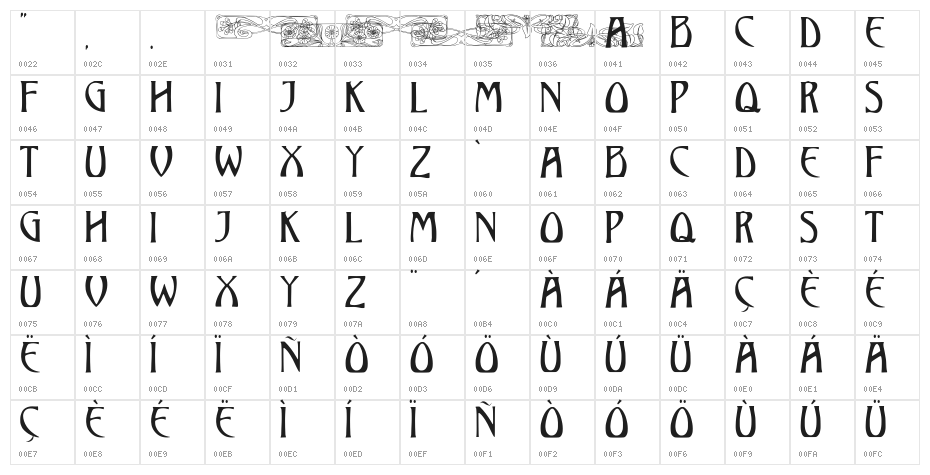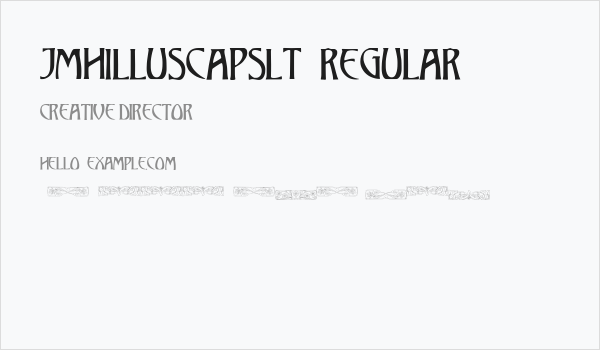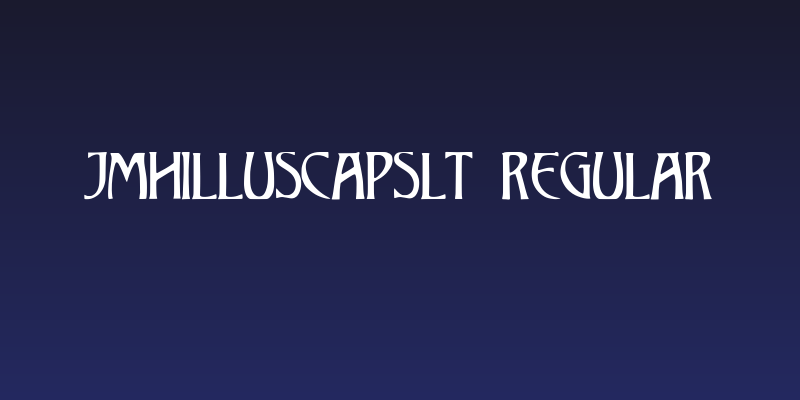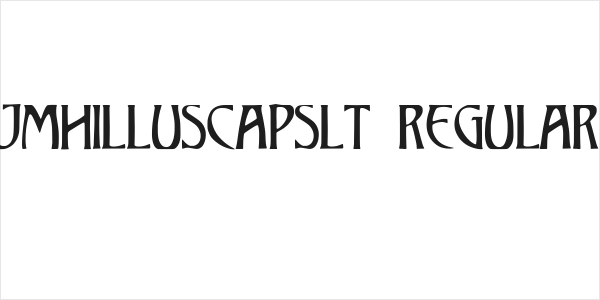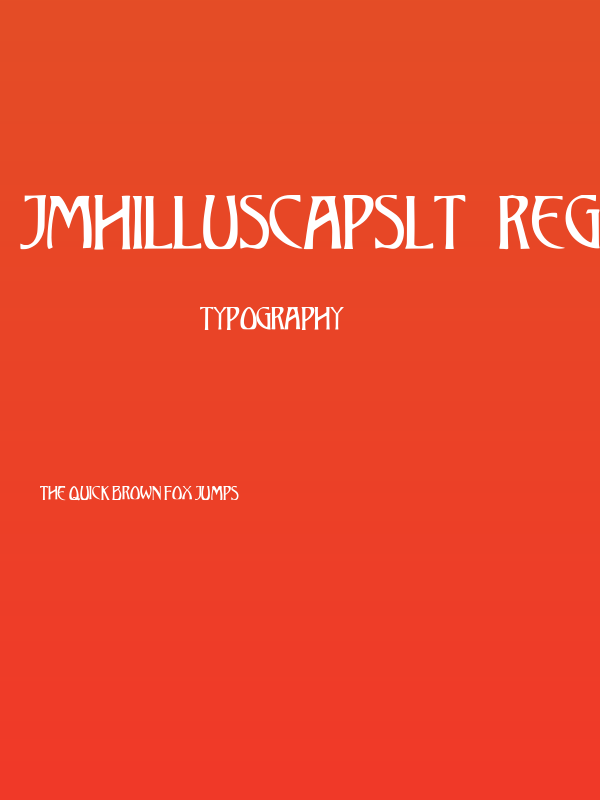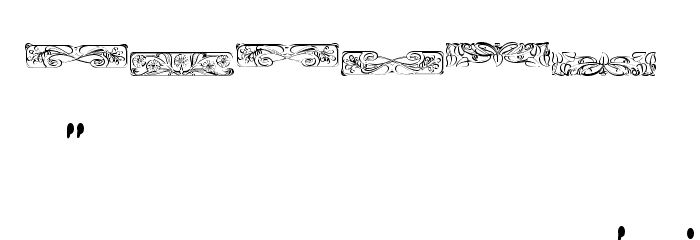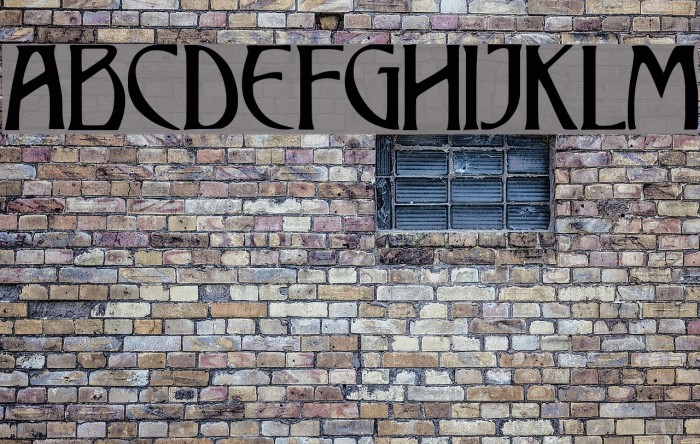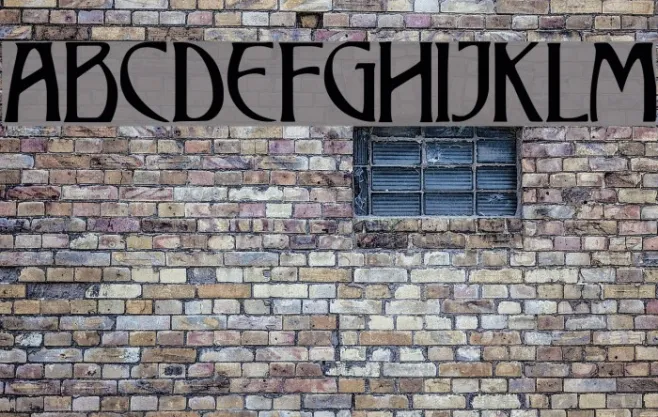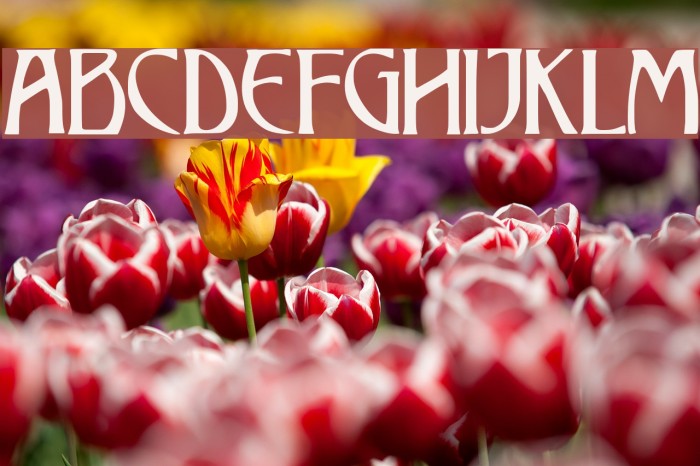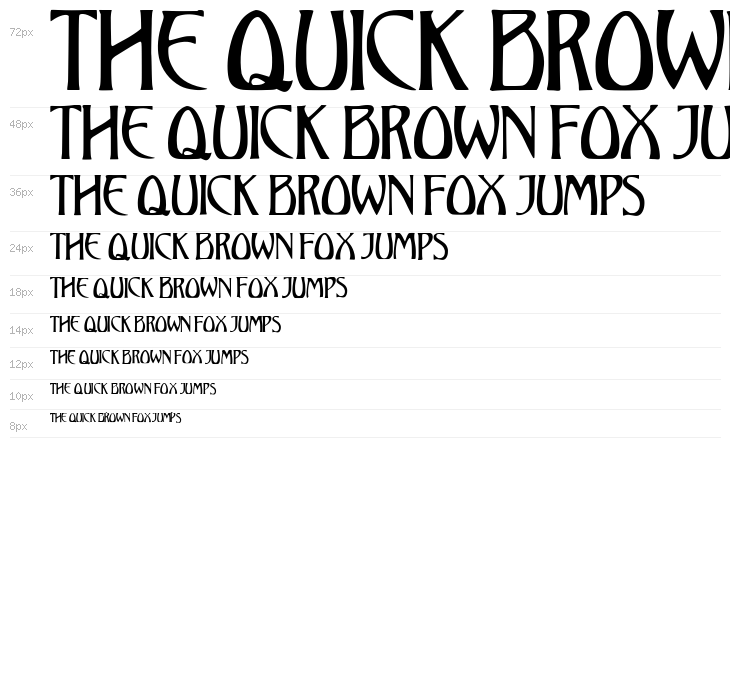
JMHIllusCapsLT-Regular Font
JMHIllusCapsLT-Regular Description
This font features a unique and artistic design with a decorative flair. The uppercase letters are characterized by their elongated and slightly curved strokes, giving them an elegant and sophisticated appearance. The font has a distinct medieval or fantasy-inspired style, with intricate details that add a touch of whimsy and creativity. The characters are well-balanced, with a moderate contrast between thick and thin strokes, enhancing readability while maintaining an artistic look. This font is perfect for projects that require a touch of elegance and creativity, such as invitations, posters, or branding materials.
| Use Case | Headlines, Logos, Decorative text |
| Proposed Projects | Ideal for invitations, fantasy-themed posters, branding, and decorative projects. |